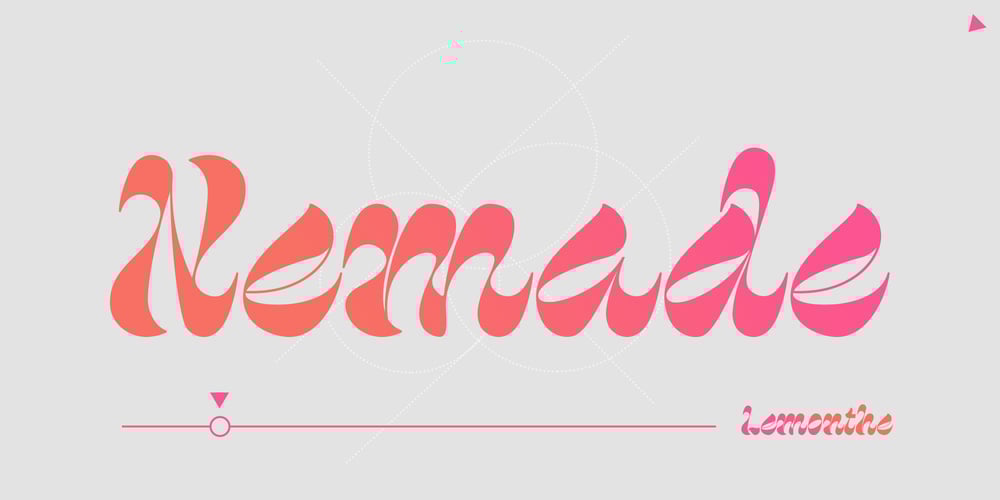
Nemade Font Family was designed by Dwi Ahidian and published by Lemonthe. Nemade contains 1 styles and family package options. Nemade is a modern and elegant display font. Its unique, clean, and flowing letterforms add a luxurious and striking impression to every design project.The perfect choice for logos, branding, posters, magazines, printing, advertising, packaging, headlines, titles, web design, etc.